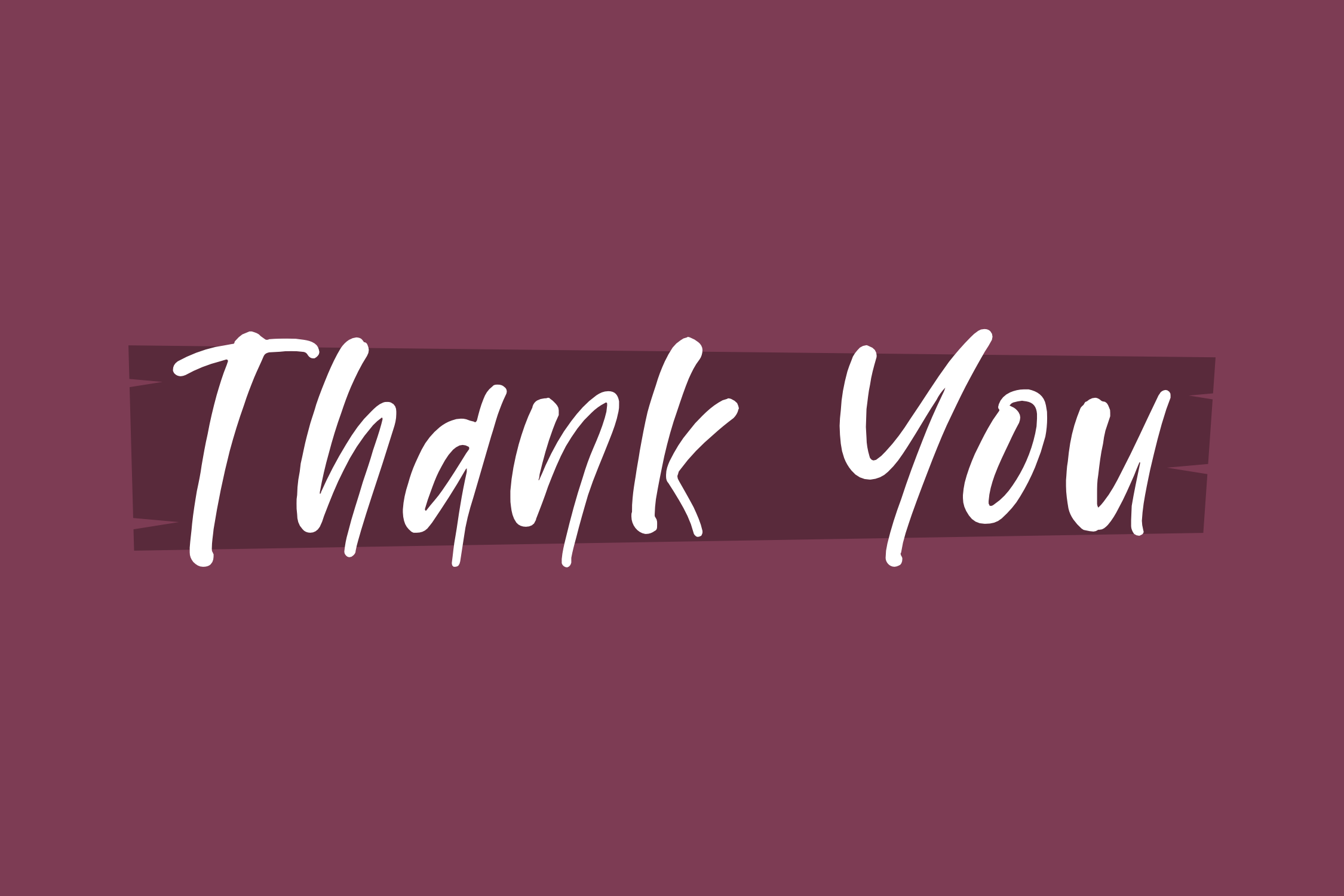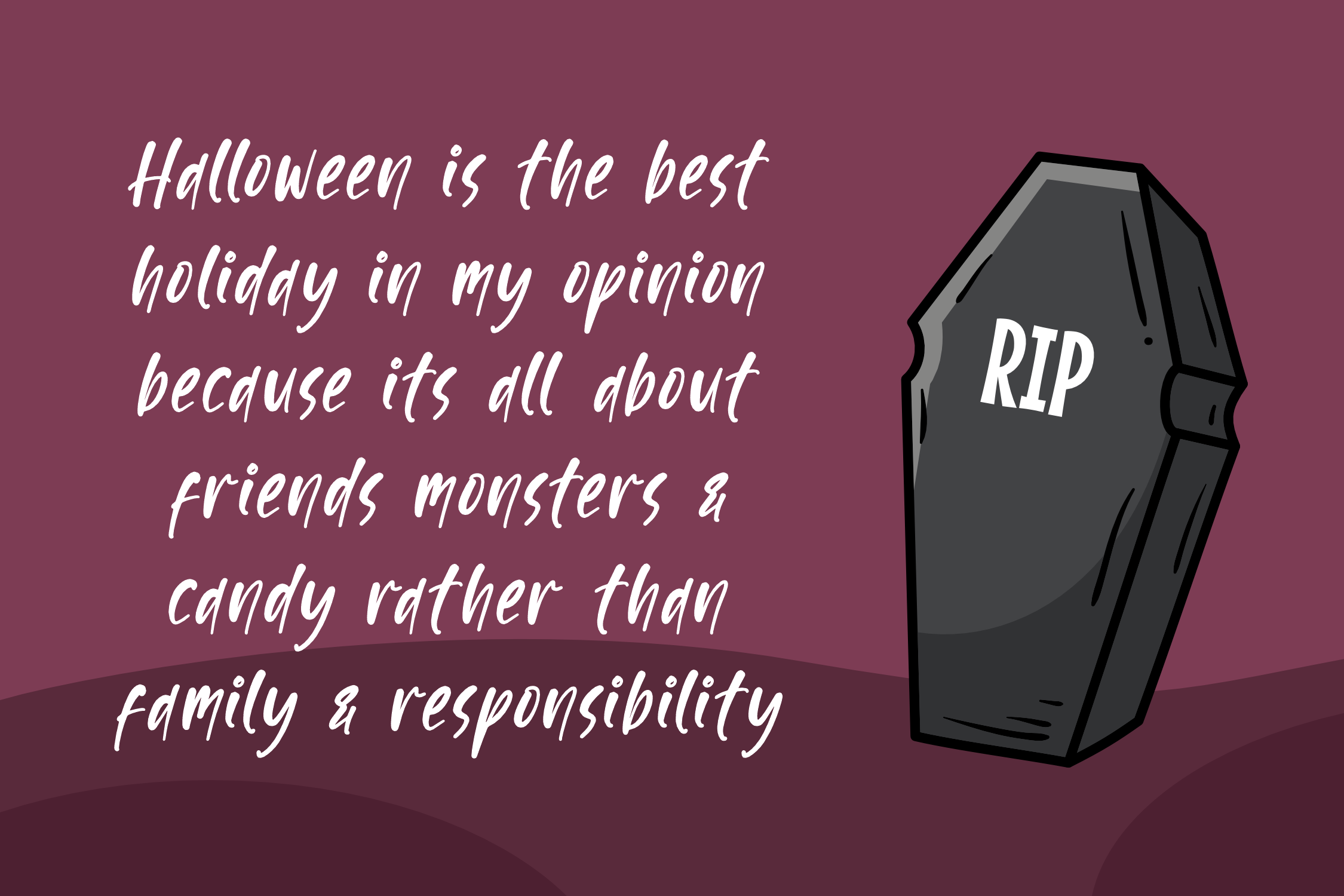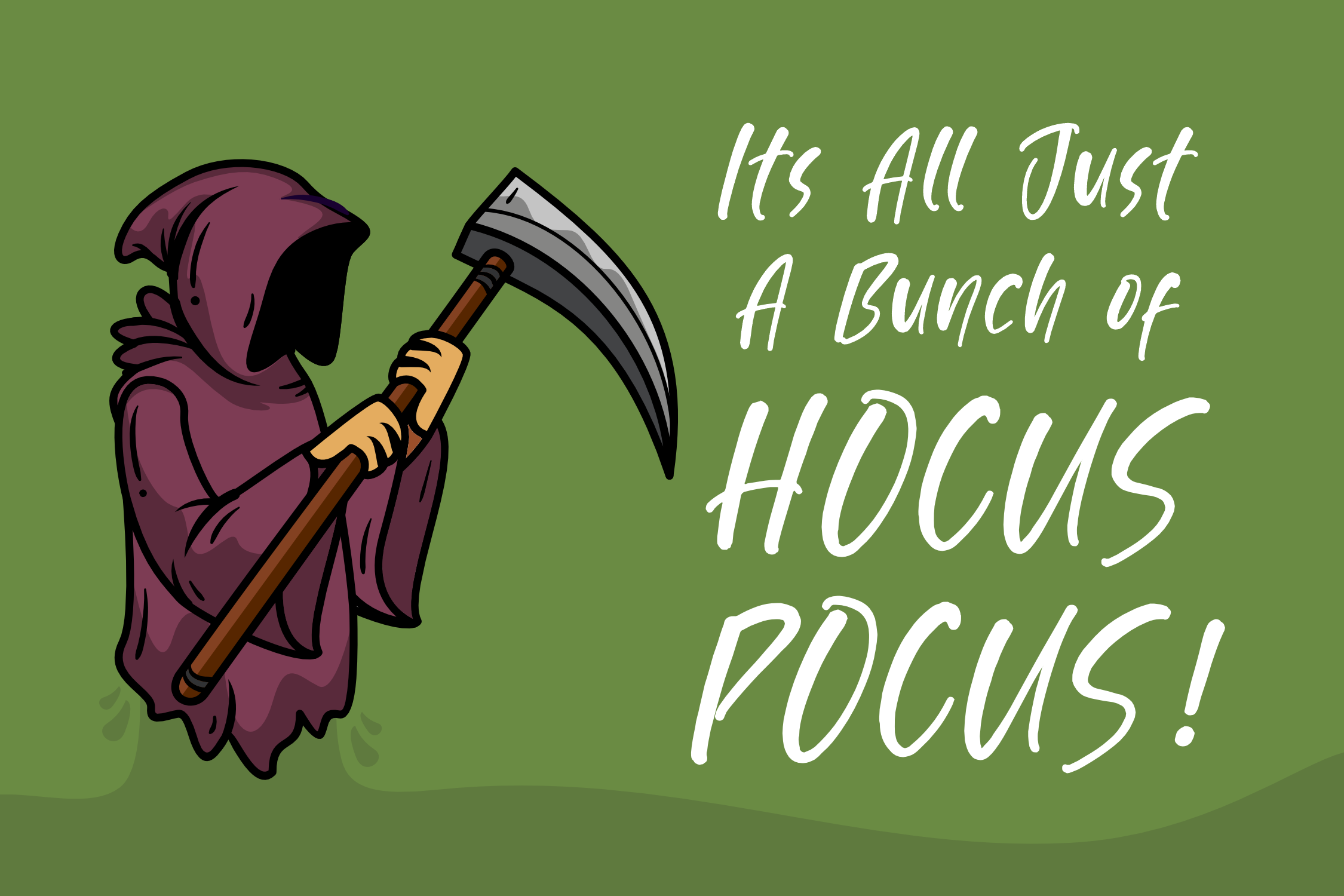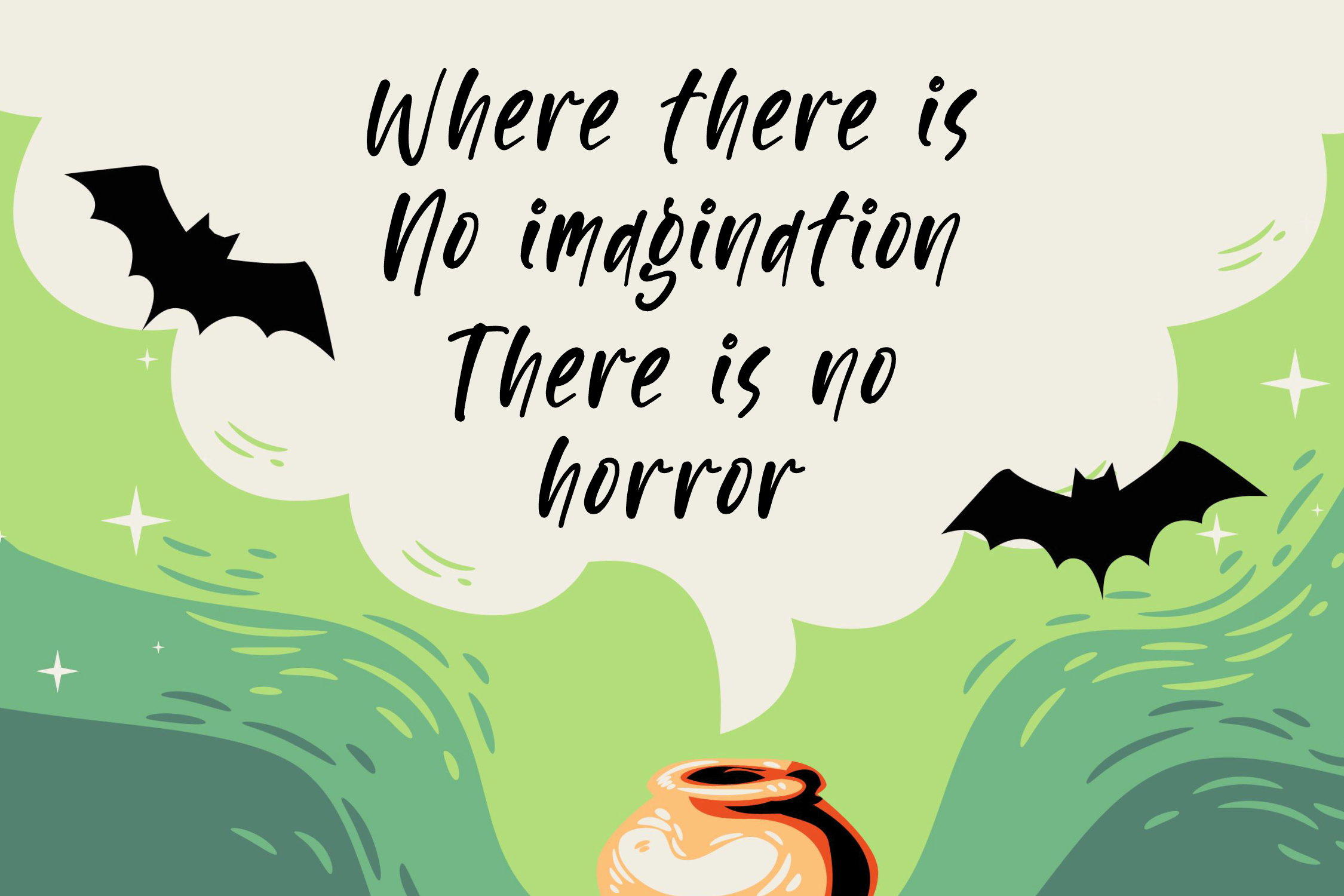
Scartoon Script Font is a Playful Scary Font, suitable for any projects such as: logos, branding projects, homeware designs, product packaging, mugs, quotes, posters, shopping bags, t-shirts, book covers, name card, invitation cards, greeting cards, label, photography, watermark, special events, and all your other lovely projects that need a beautiful script taste.